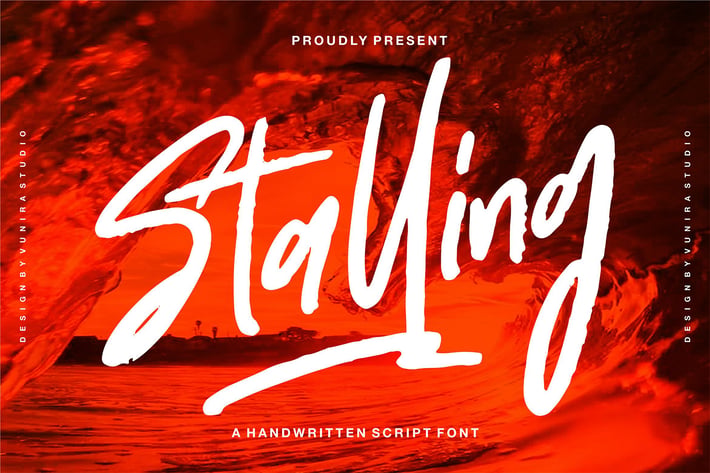
Stalling | A Handwritten Script Font
Stalling | A Handwritten Script Font with a calligraphy style, So beautiful on invitation like greeting cards, branding materials, business cards, quotes, posters, and more!